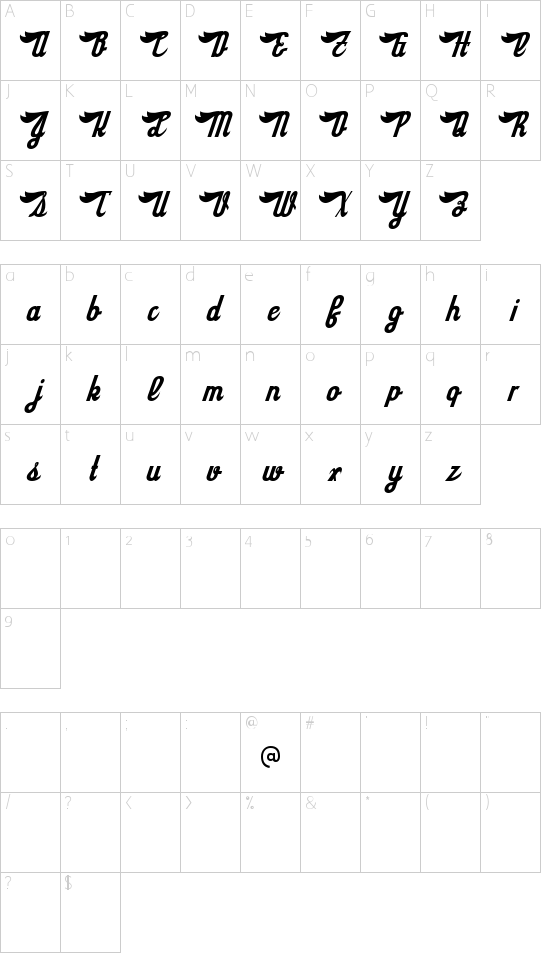
Sloe Gin Rickey Font . Web download sloe gin rickey font · free for commercial use · sloe gin rickey is penned in an aliform, industrial style. It is script font and has 2 styles.
Sloe Gin Rickey Font - The sloe gin rickey font has been downloaded 6,709 times. Web download and install the sloe gin rickey font by typodermic fonts. Web download sloe gin rickey font · free for commercial use · sloe gin rickey is penned in an aliform, industrial style. You can download the current version. Web this is an old undownloadable version of sloe gin.
Sloe Gin Rickey Font - Web sloe gin rickey is penned in an aliform, industrial style. Web click here and download the sloe gin rickey font · window, mac, linux · last updated 2024 · commercial licence included The sloe gin rickey font has been downloaded 6,709 times. Web download and install the sloe gin rickey font by typodermic fonts. It is script font and.
Sloe Gin Rickey Font - Web download free sloe gin rickey font by typodermic fonts. Web click here and download the sloe gin rickey font · window, mac, linux · last updated 2024 · commercial licence included Web sloe gin rickey is penned in an aliform, industrial style. You can download the current version. It is script font and has 2 styles.